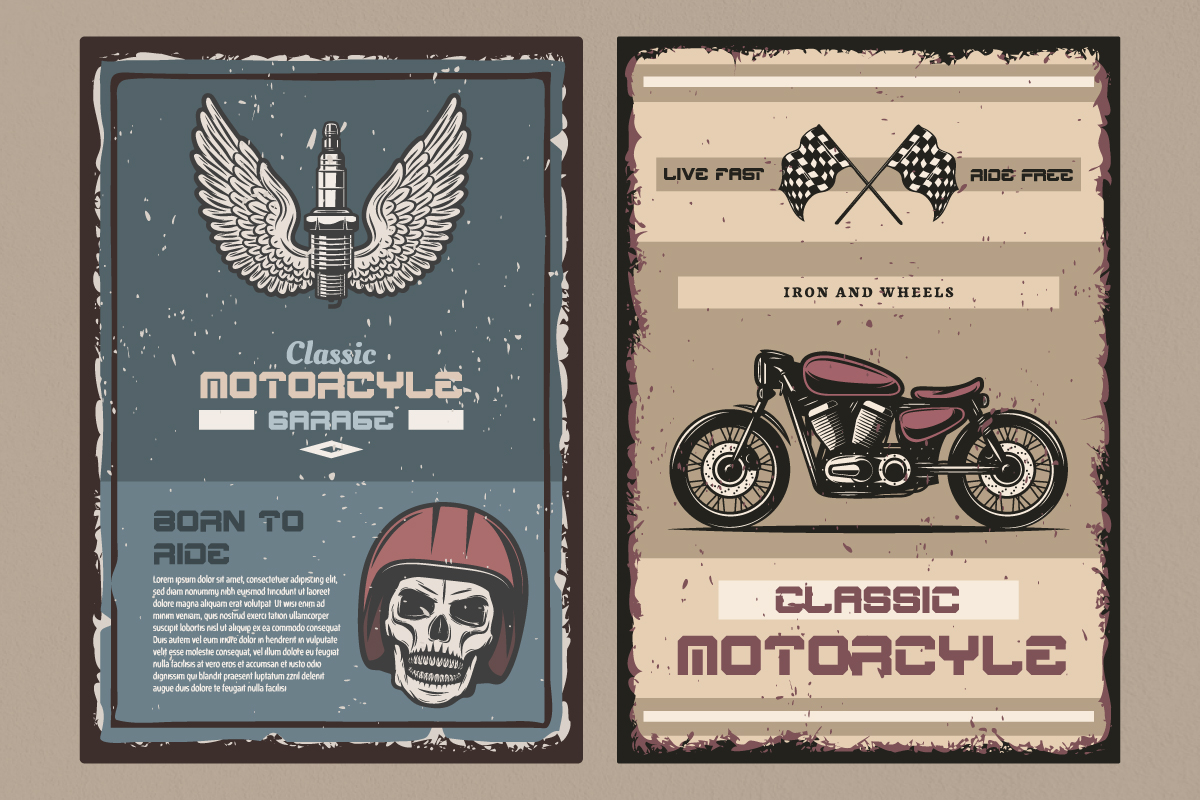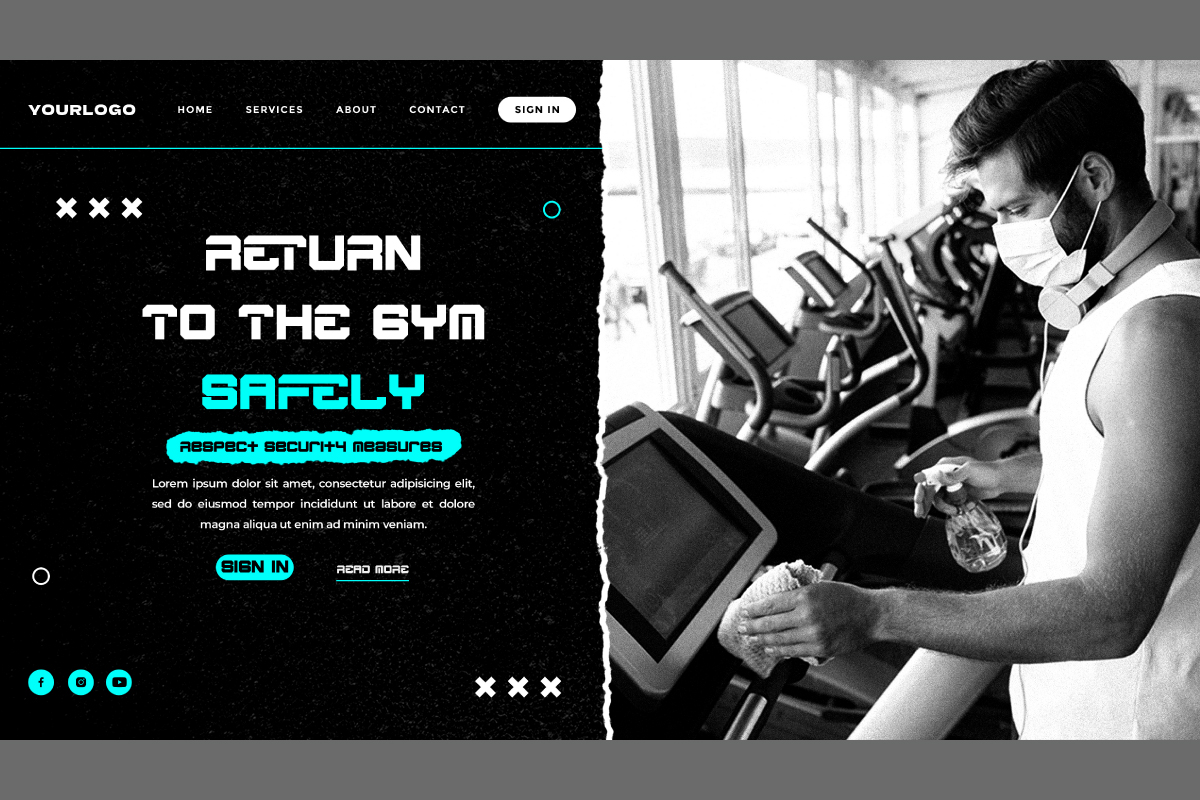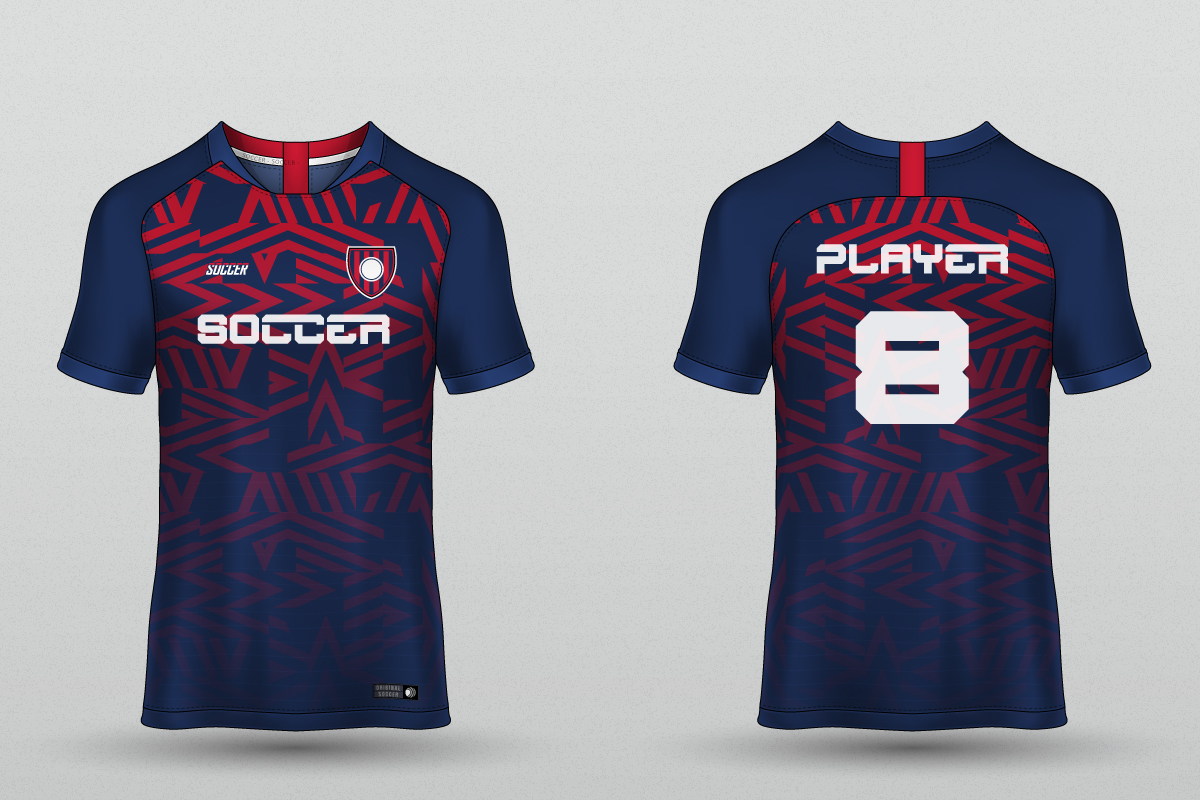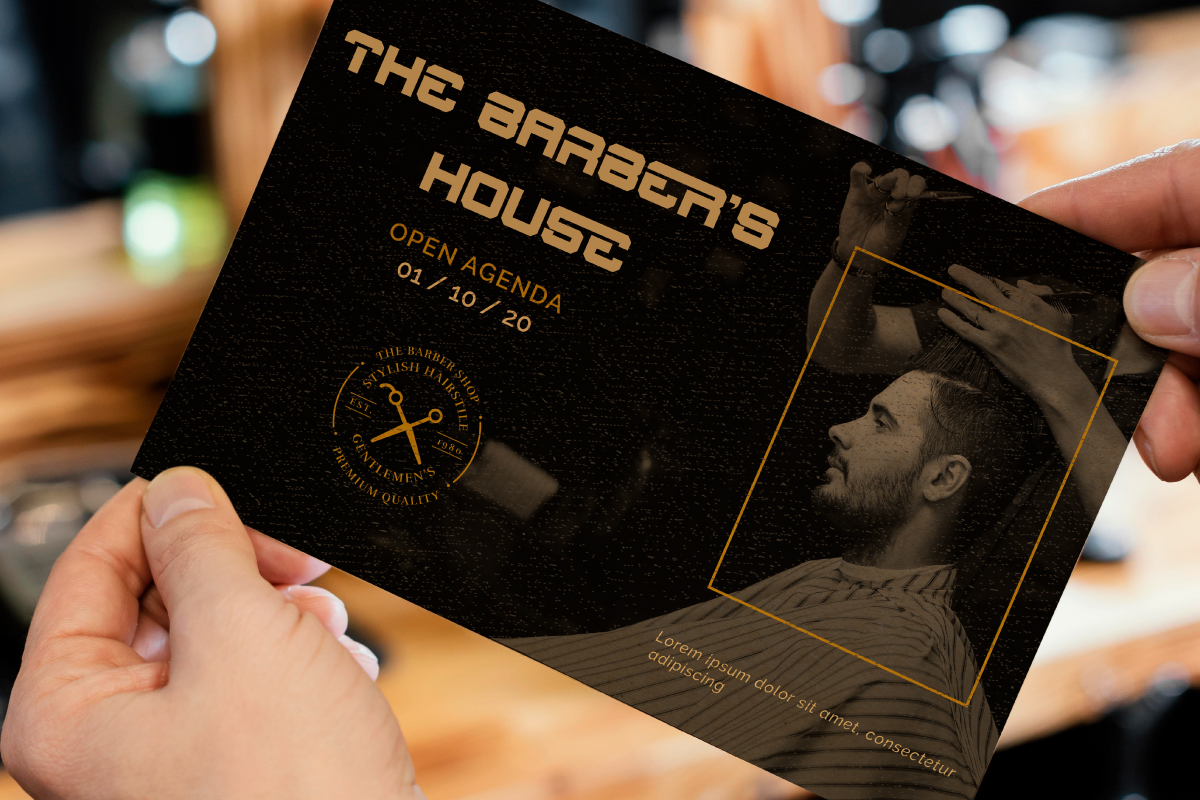
Blacked Font
Blacked Display Font
It’s a strong futuristic sans serif Display font with many ligatures and alternates. The style of this font are modern, stylish, sophisticated and strong style. This display sans serif font, handcrafted from our Studio here in, Indonesia. The artists/designers of this beautiful typeface is Widiyanti and Suci. Blacked Font will be great for any projects including : brandings, signage, billboard, headline, flyer, brochure etc.